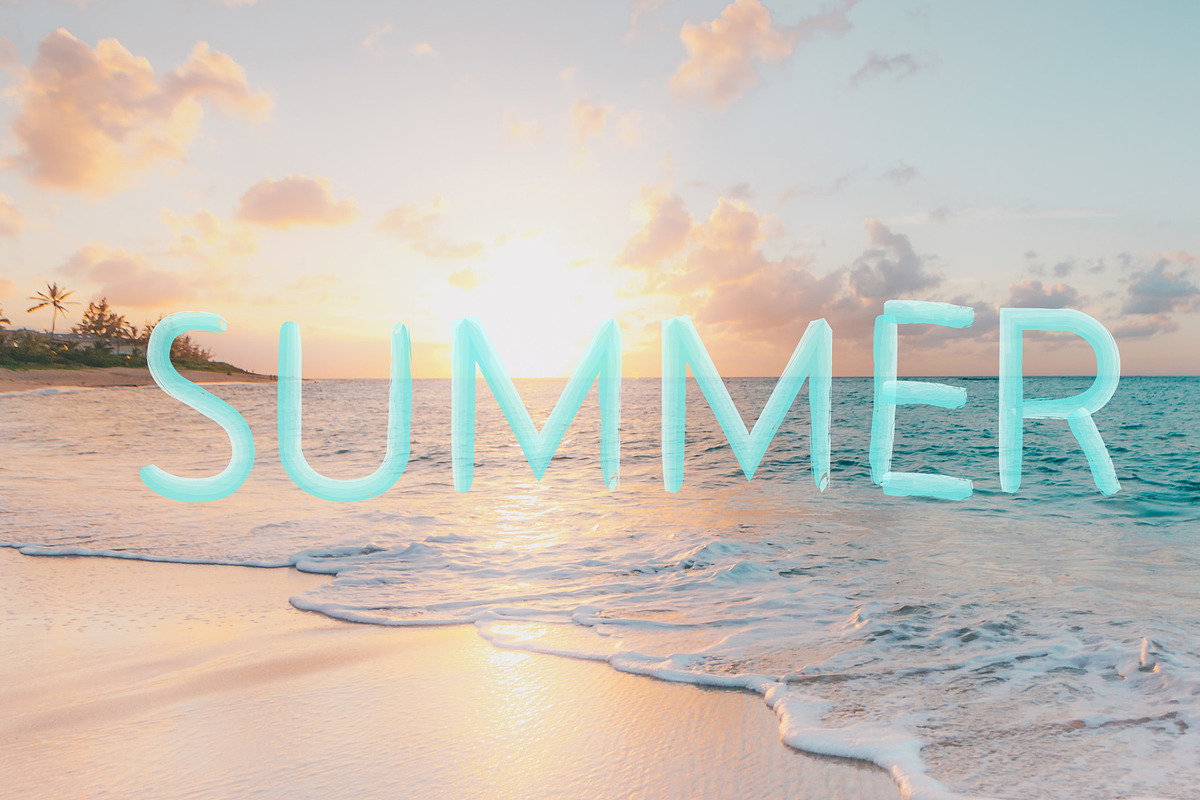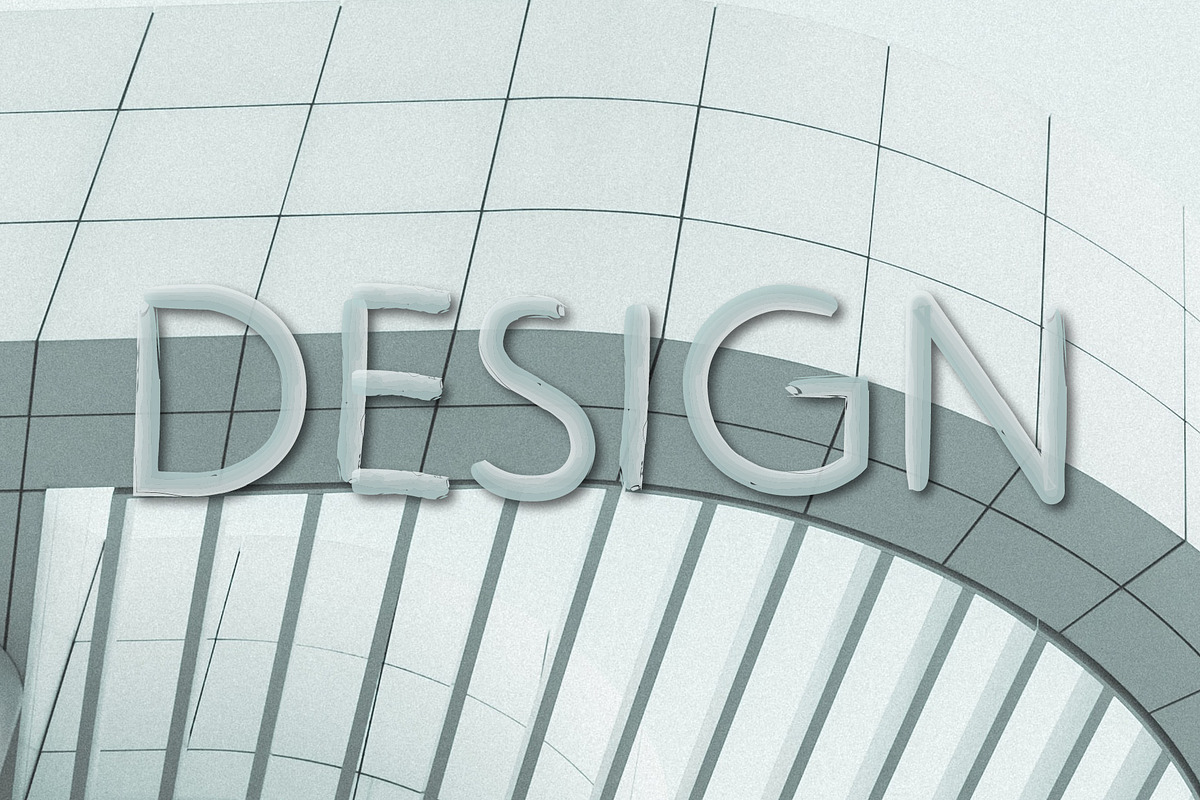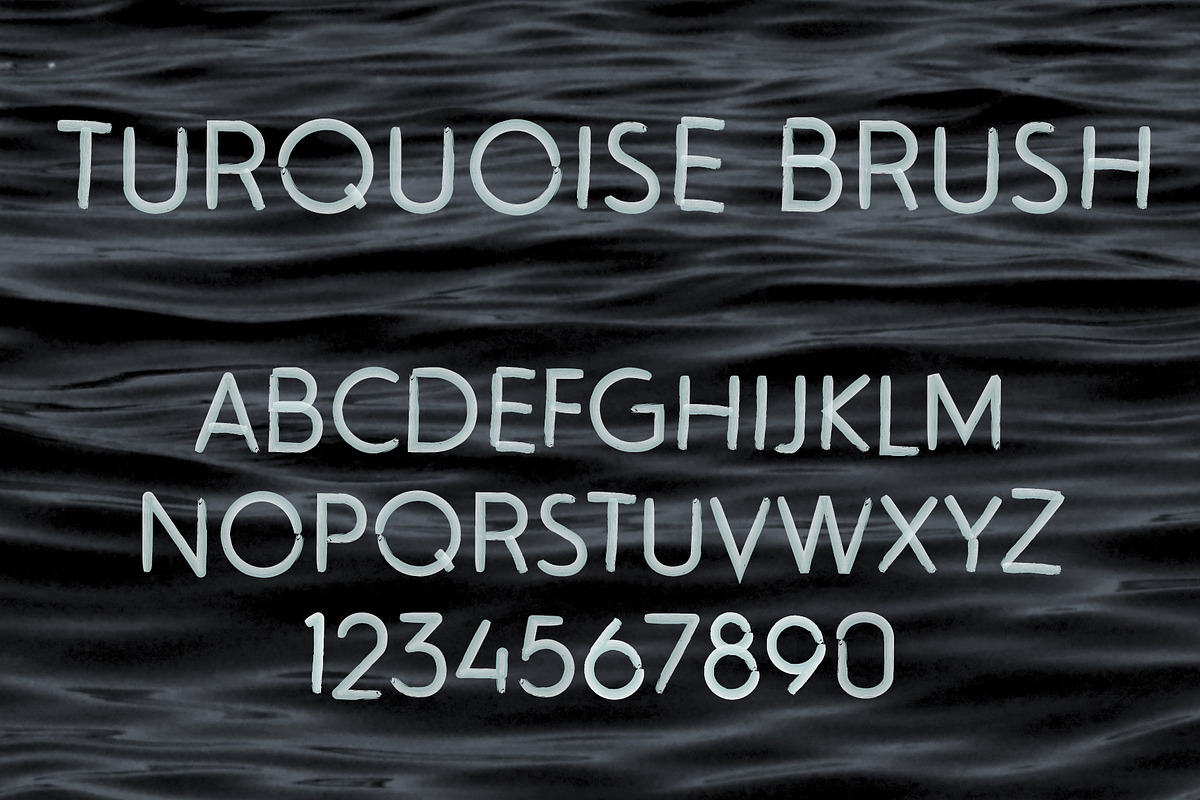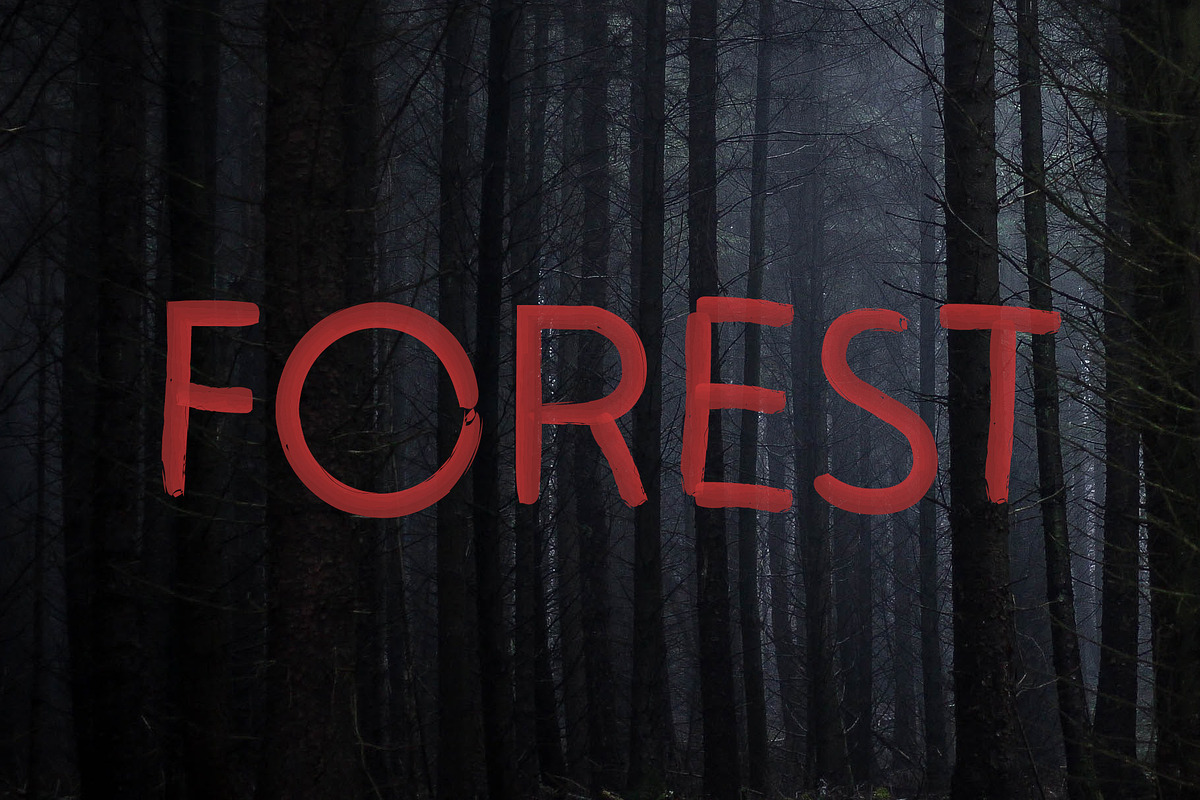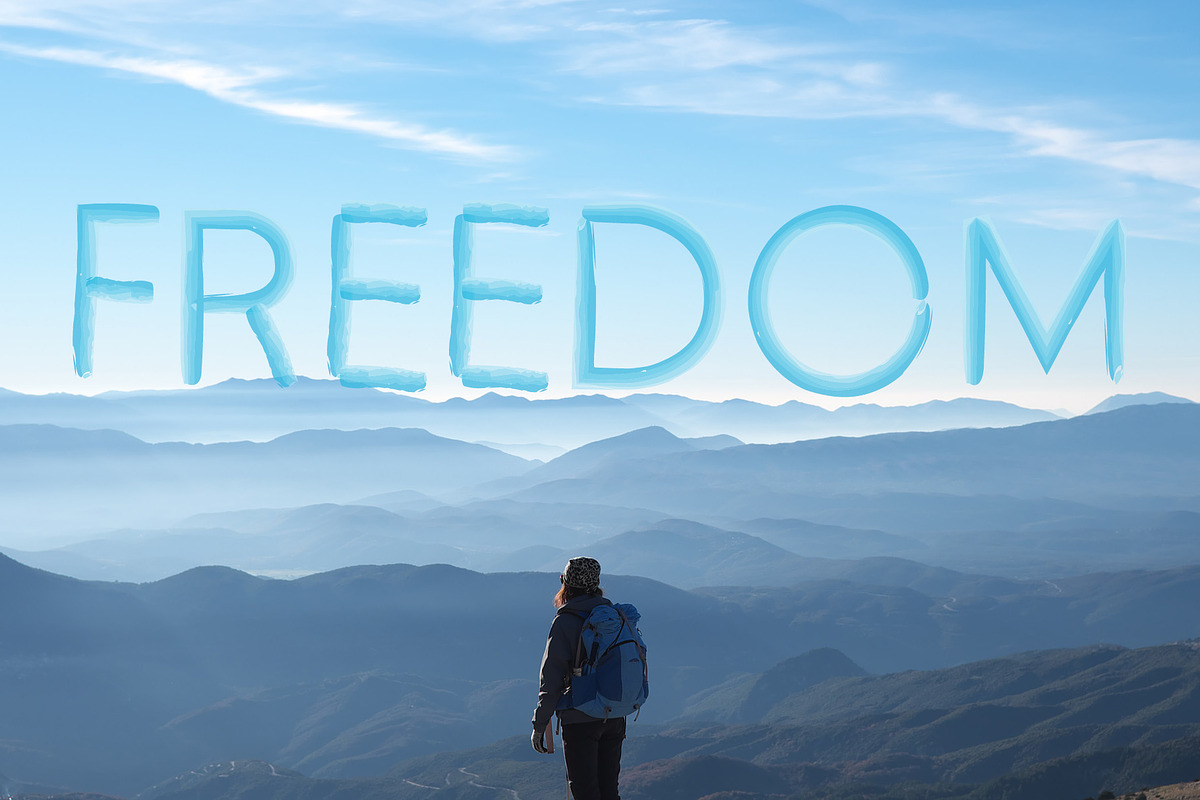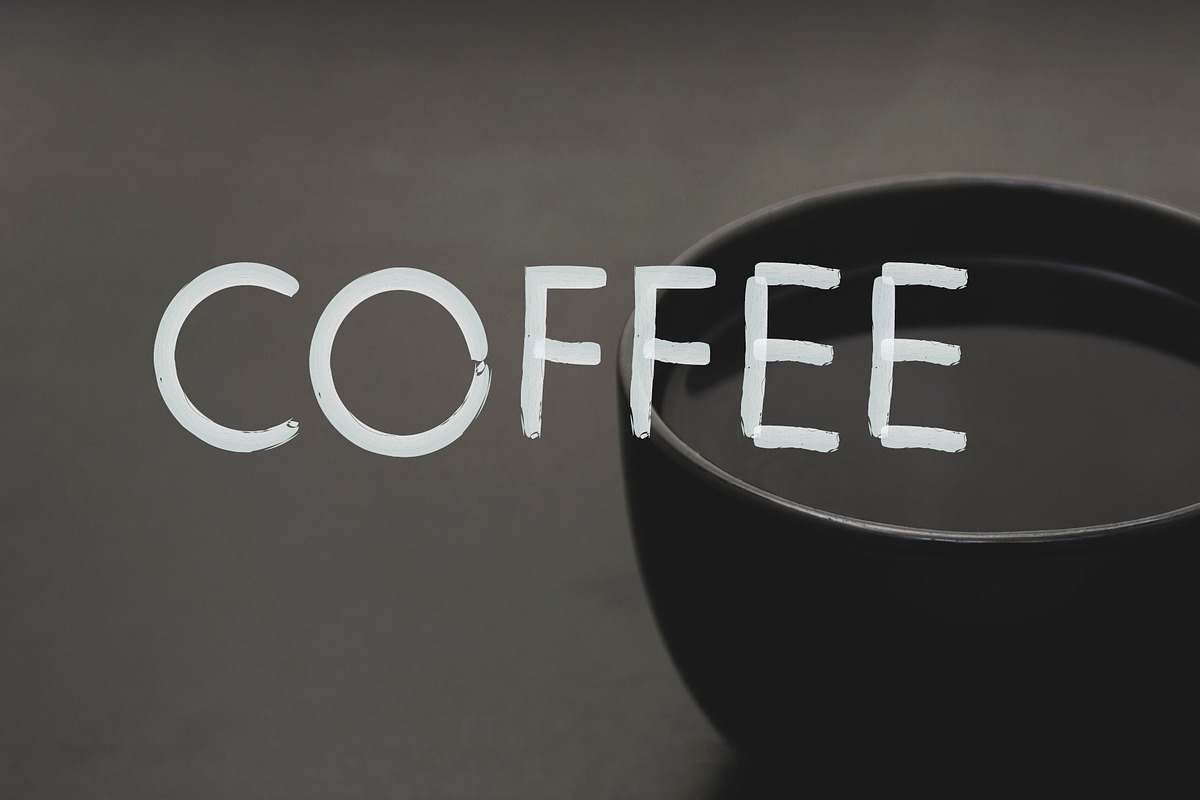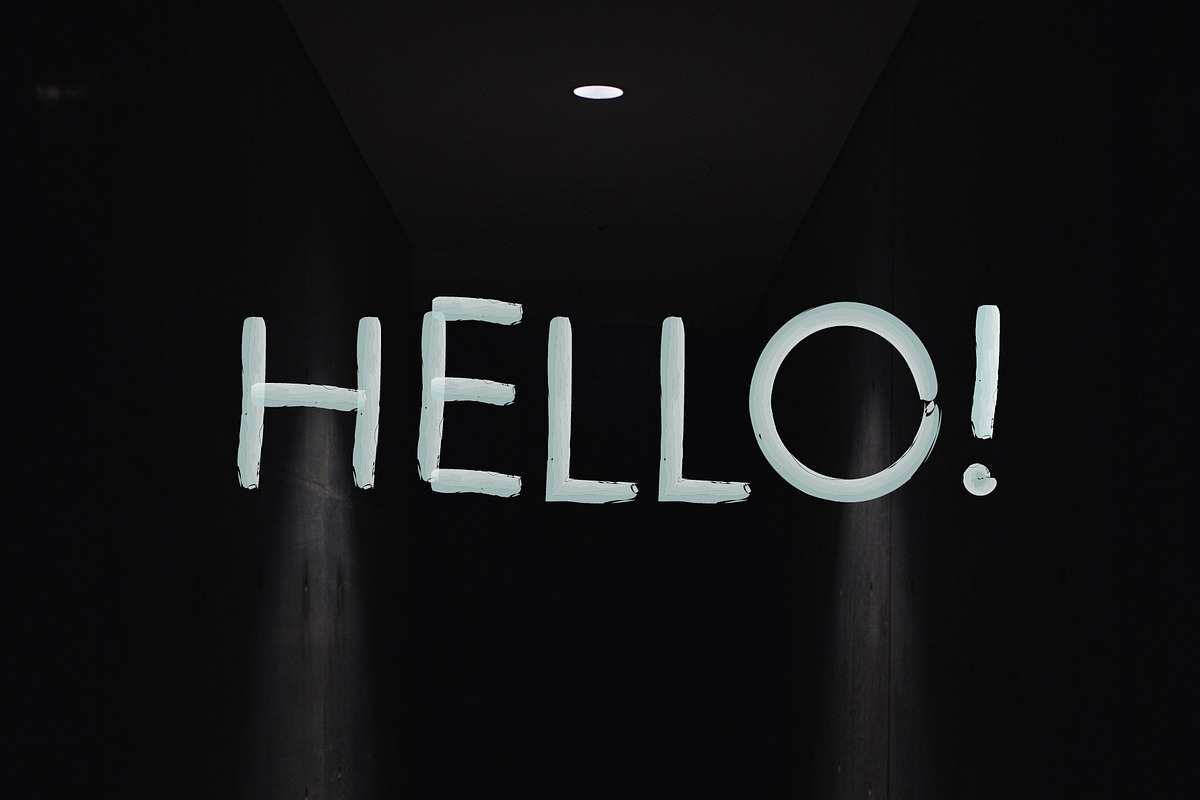
Turquoise Brush SVG Font
Turquoise Brush (SVG font) is a hand-painted sans serif.
The SVG font tries to mimic acrylics light turquoise brushstroke.
It is made with medium acrylics brushstrokes that give an impression of a real hand-painted effect.